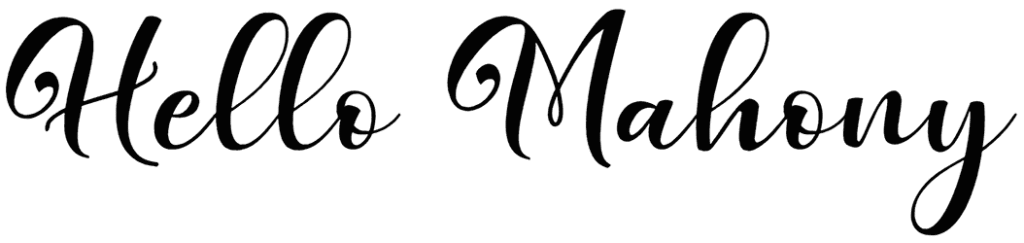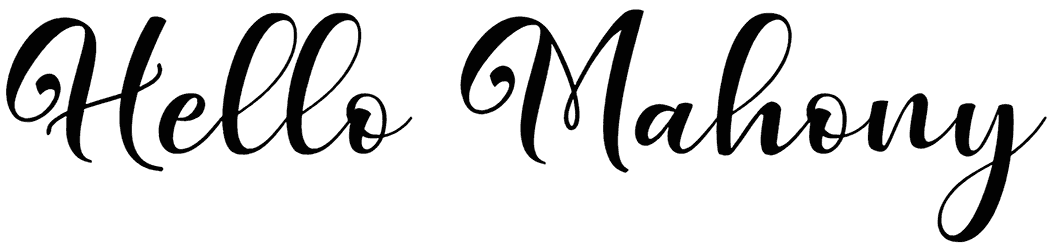
Hello Mahony Font
The Hello Mahony font is designed with eye-catching and romantic elements that bring out a trustworthy sense to your words. You can mostly use this whimsical font for informal purposes such as novel names, channel banners, summer parties or event flyers, and cartoon movie titles.
The soft and continuous look of this font makes it all the more joyous. Some of the letters in Hello Mahony might be hard to read.